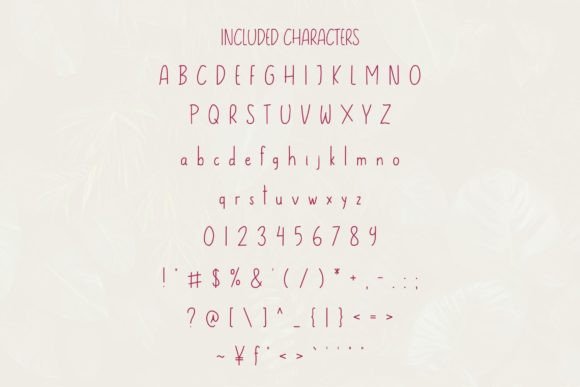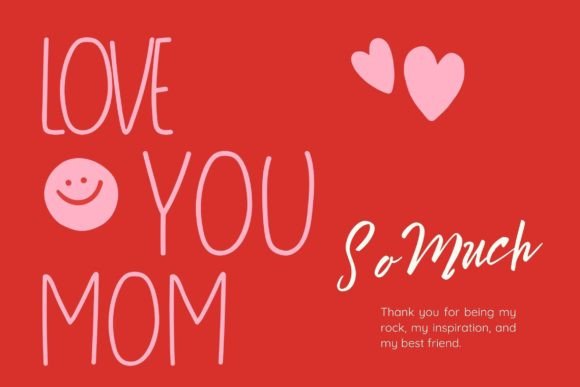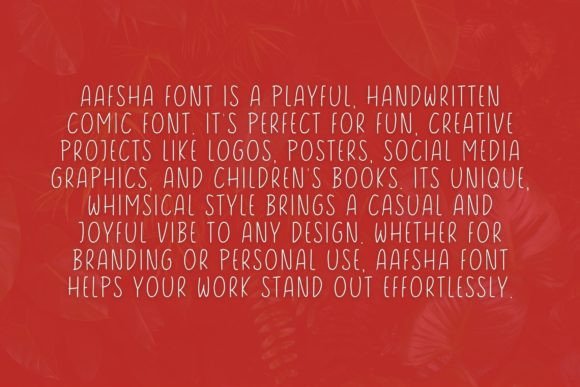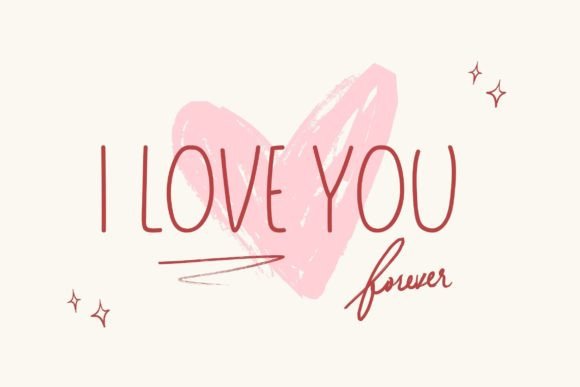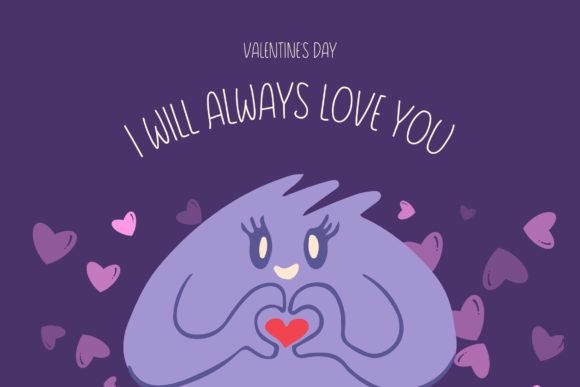
Unlock the Whimsy in Your Creations
Remember the thrill of doodling in your notebook as a child? The freedom to let your imagination run wild, creating characters and stories that brought you joy? That same sense of playfulness is what Aafsha Font is all about. This exuberant handwritten comic font is designed to infuse your work with a sense of whimsy, making your comic books, illustrations, and children’s books truly unforgettable.
Aafsha Font is more than just a font – it’s a partner in creativity, helping you to craft captivating headlines, eye-catching posters, and dynamic digital graphics that leave a lasting impression. With its fluid, effortless strokes and jovial demeanor, Aafsha Font is the perfect addition to any designer’s toolkit.
Aafsha Font Key Features
- Font Family: Aafsha is a sans-serif font family designed for modern and sleek designs.
- Character Set: Supports a wide range of languages, including Arabic, Persian, and Urdu, making it a versatile choice for multilingual designs.
- Unique Characteristics: Features a modern and clean design with a unique blend of geometric and organic elements, making it ideal for corporate branding, digital products, and editorial content.
- Font Weight and Style: Available in multiple weights, including light, regular, medium, bold, and heavy, as well as italic and oblique styles, to provide flexibility and versatility in design applications.
Aafsha Font Review
I’ve had the chance to work with the Aafsha Font, and here’s my honest take on it.
- Clean Lines – Aafsha Font has clean, minimalist lines that make it perfect for modern designs.
- High Legibility – The font is easy to read, even at smaller sizes, which is a must for any font.
- Great for Digital Use – Aafsha Font is optimized for digital use, making it perfect for websites, social media, and mobile apps.
- Limited Expressiveness – Aafsha Font is a simple, neutral font that may not be the best choice for designs that require a lot of personality or flair.
- No Bold or Italic Variations – While the font has a regular and light version, it would be nice to see more variations to add some extra depth to the design.
Overall, Aafsha Font is a solid choice for any project that requires a clean, modern font. While it may not be the most expressive font out there, it’s a great option for digital use and can help create a professional-looking design with minimal effort.
Aafsha font is ideal for creative projects that require a unique and stylish touch. Common use cases include:
– Logos and branding materials
– Infographics and presentations
– Editorial and publishing projects
Getting the Most Out of Aafsha Font
To get the most out of Aafsha font, experiment with different font sizes, colors, and styles to create visually appealing designs. You can also use Aafsha font in combination with other fonts to add depth and interest to your projects.
Alternatives to Aafsha Font
Nunito Font
Nunito is a modern sans-serif font designed by Vernon Adams. It is perfect for use in digital products, such as mobile apps, websites, and software interfaces. Nunito has a clean and minimalist design, making it ideal for displaying large amounts of text. Compared to Aafsha Font, Nunito has a more geometric and futuristic feel.
Montserrat is a sans-serif font designed by Julieta Ulanovsky. It is a popular choice for digital design, particularly for use in headlines and titles. Montserrat has a strong and urban feel, making it perfect for use in modern and trendy designs. Compared to Aafsha Font, Montserrat has a more dramatic and attention-grabbing feel.
Open Sans is a modern sans-serif font designed by Steve Matteson. It is a highly legible font, making it perfect for use in body text and paragraphs. Open Sans has a clean and friendly design, making it ideal for use in digital products and publications. Compared to Aafsha Font, Open Sans has a more neutral and approachable feel.